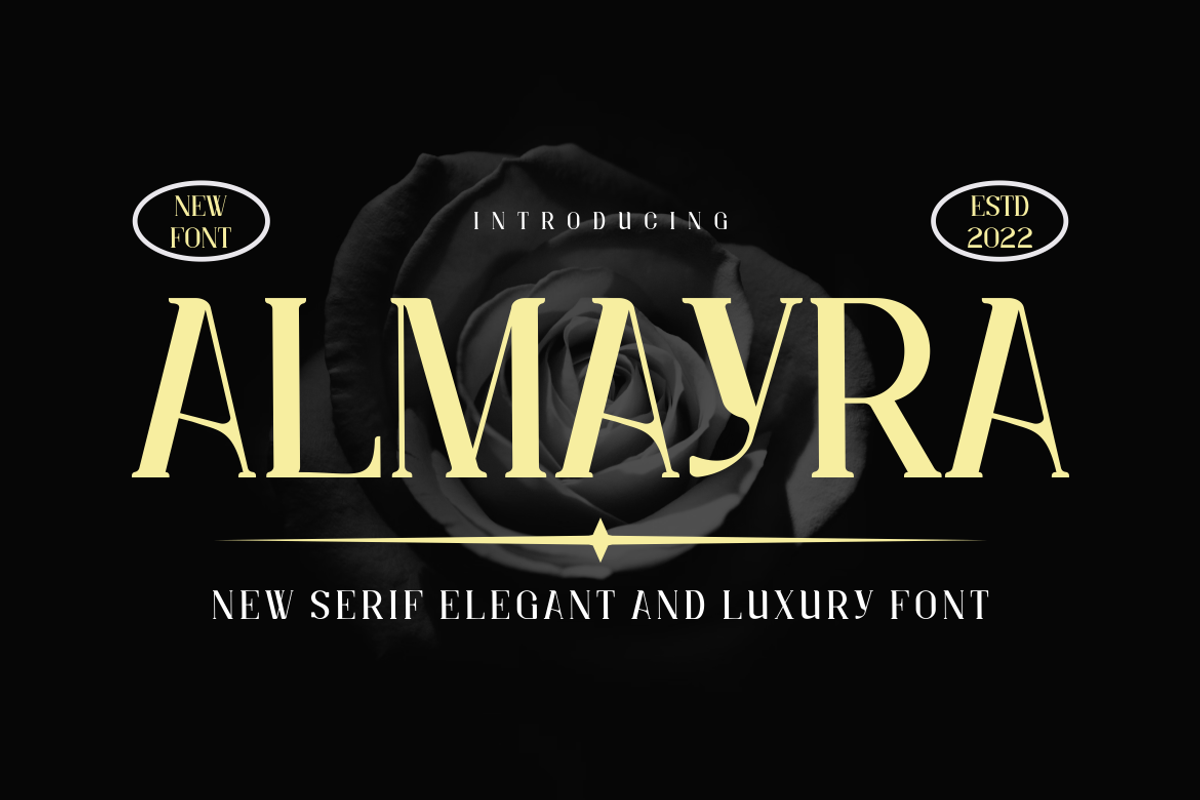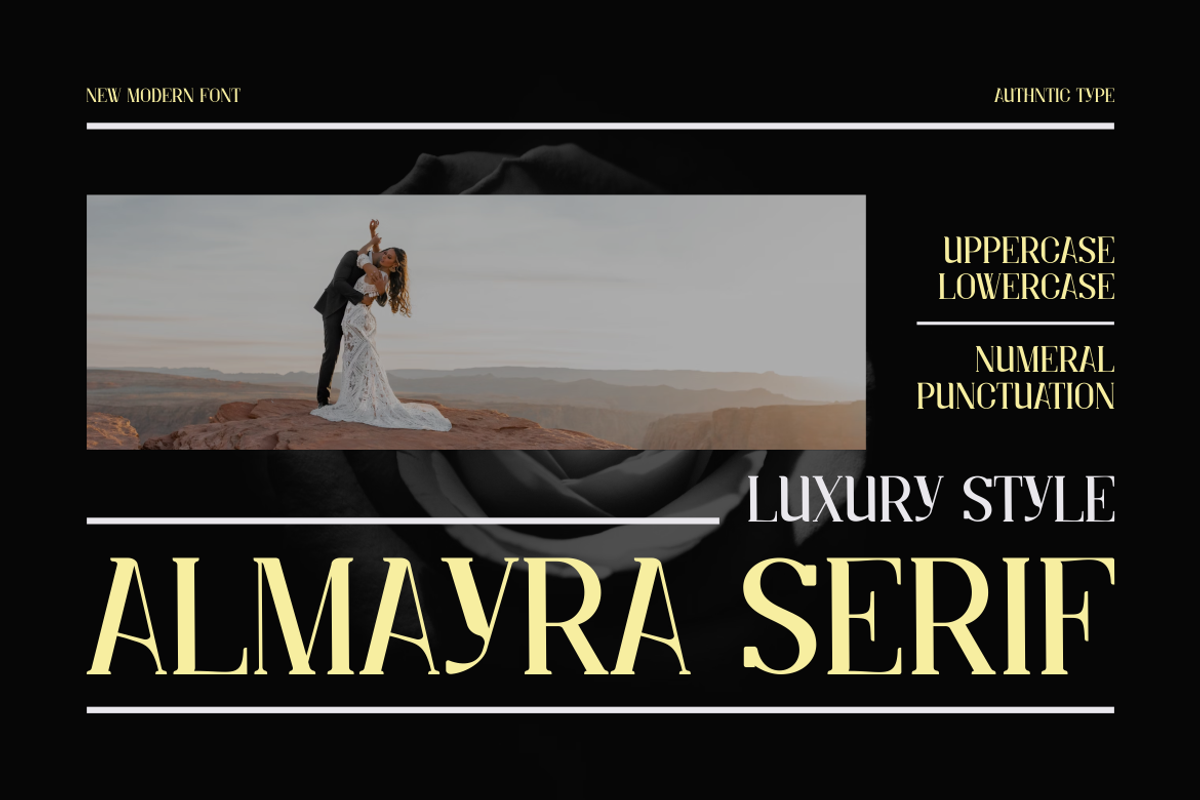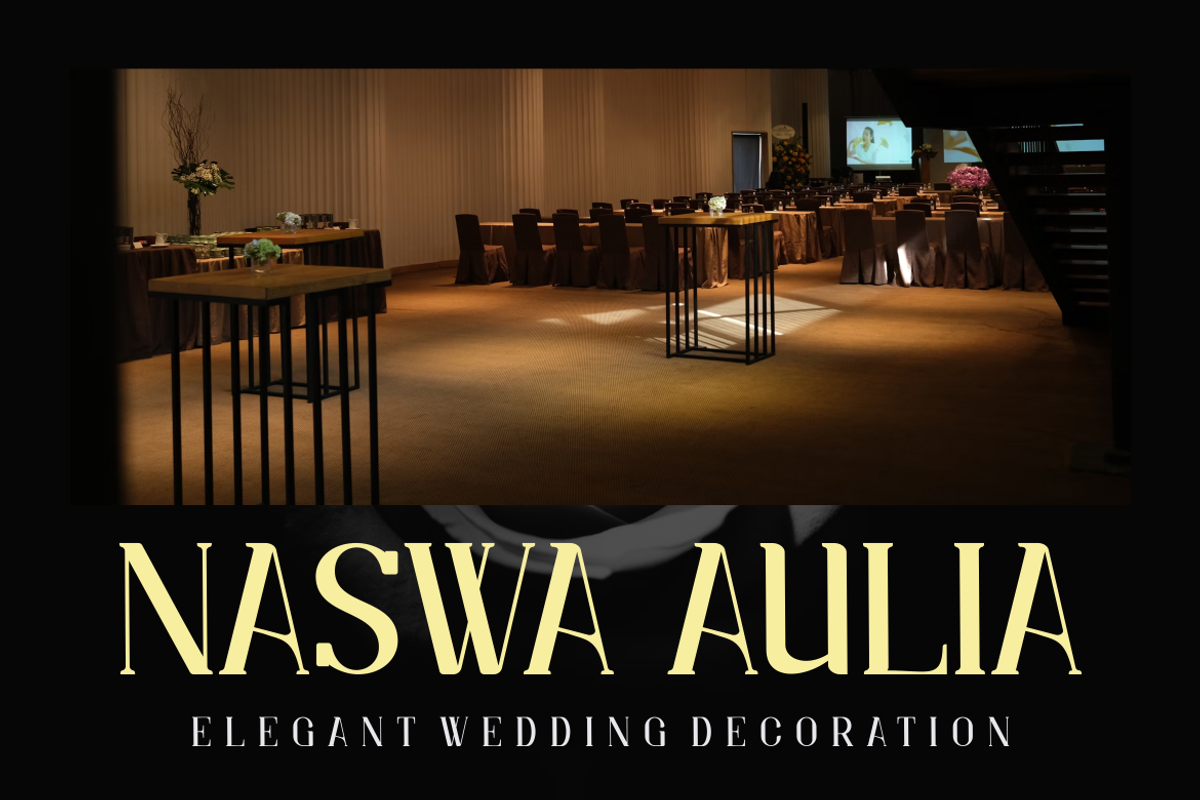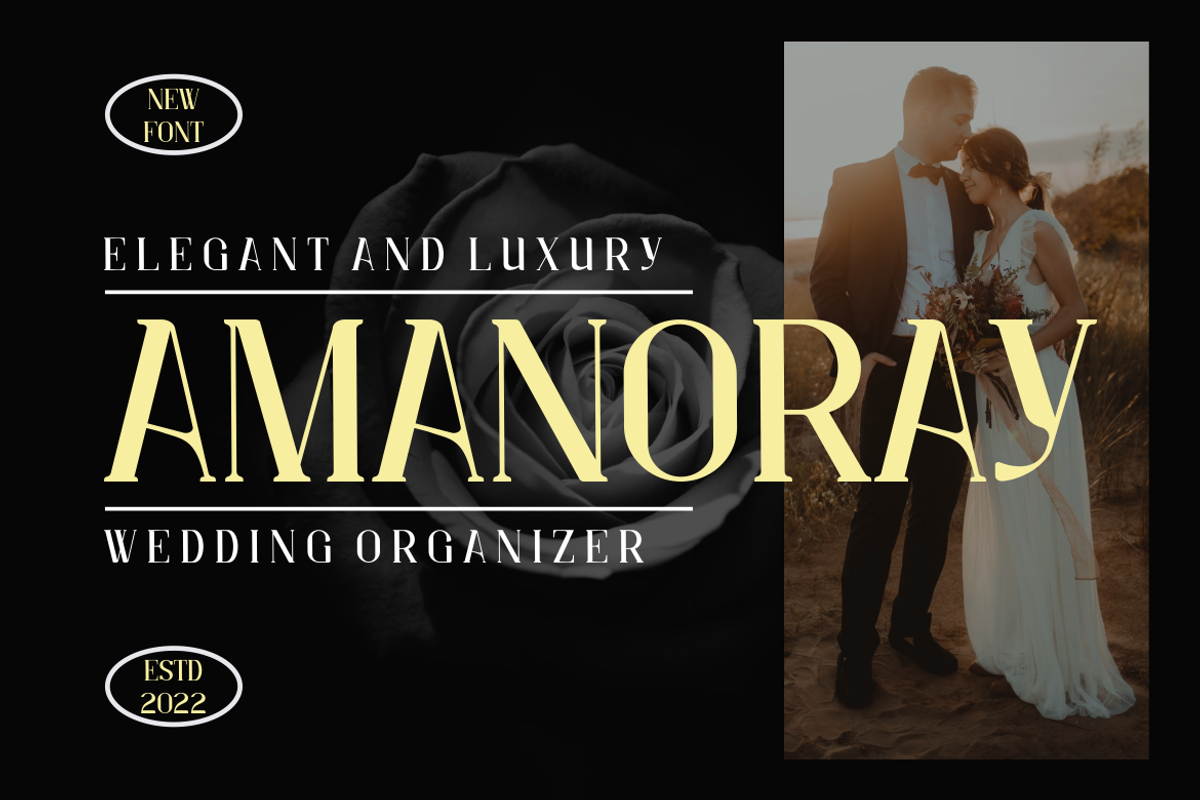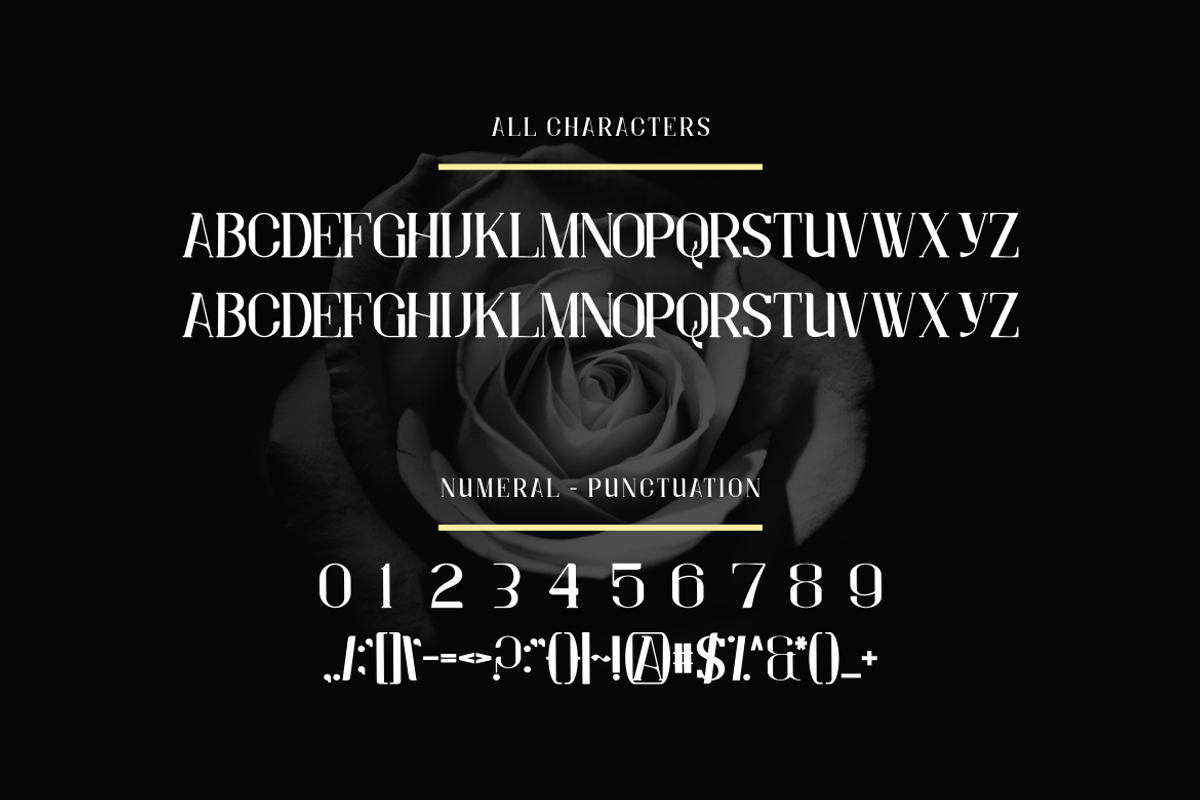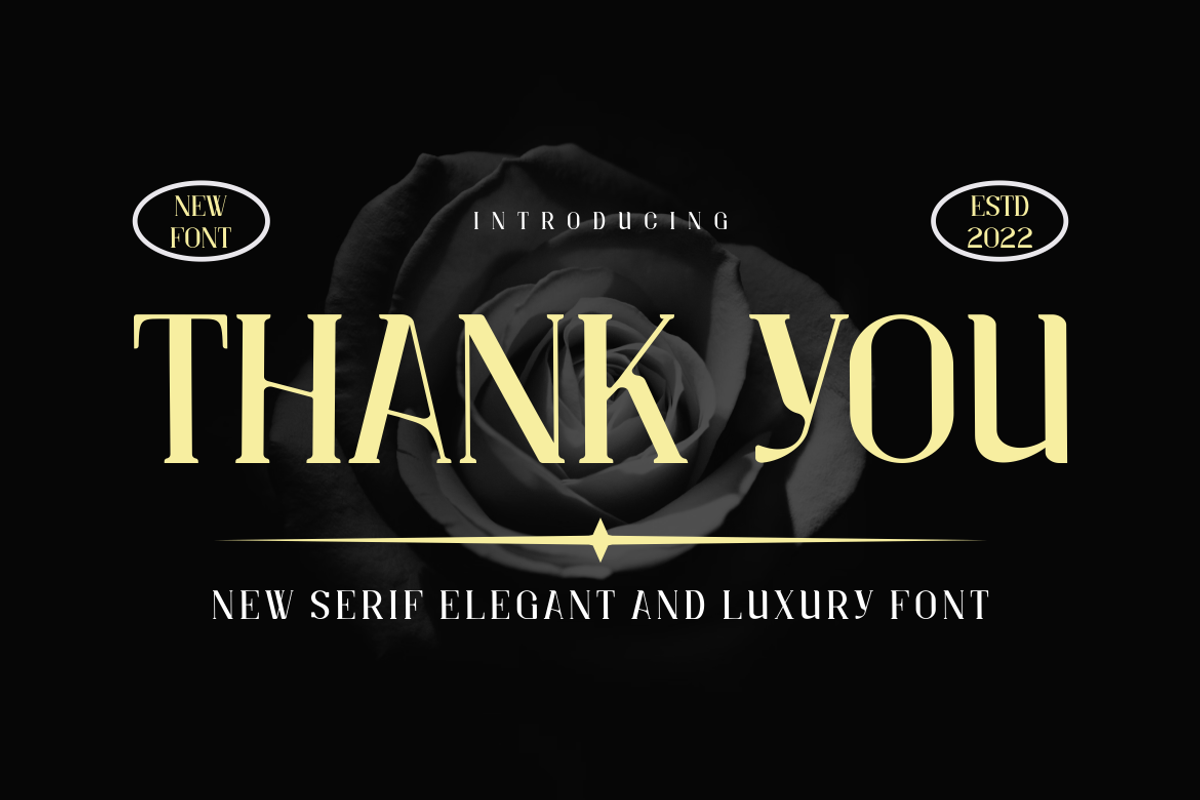
Almayra Font
Introducing our new product Almayra Font - Modern Font
Almayra Font- Modern Font is a bold and authentic display font. The font is suitable for any branding project like logo, t-shirt printing, esport, and many more. outstanding in a wide range of contexts.